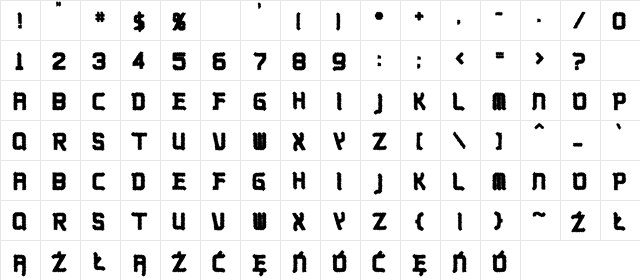
Kobajashi Regular Font Preview
Kobajashi Regular
Kobajashi Regular Font Details
| Foundry | flashFONT |
| Designer | bartek nowak |
Design Context for Kobajashi Typeface
Kobajashi is a composed and adaptable typeface that performs quietly and consistently across a wide range of design contexts.